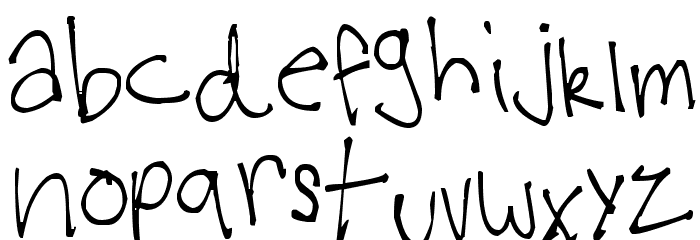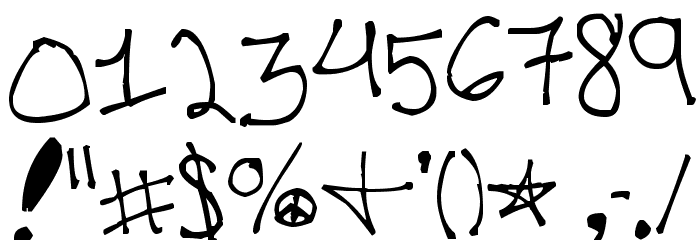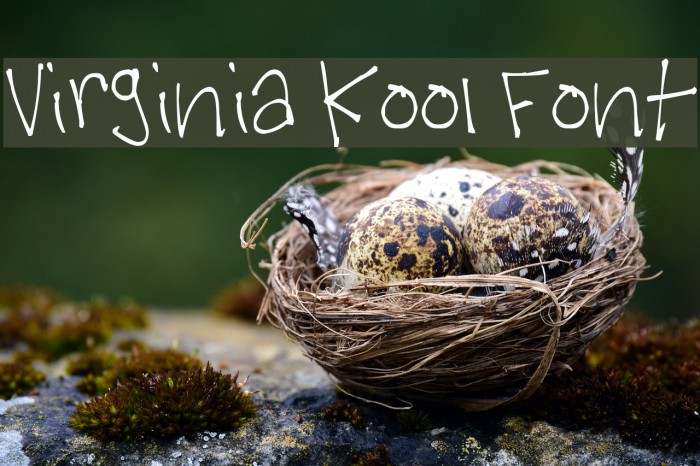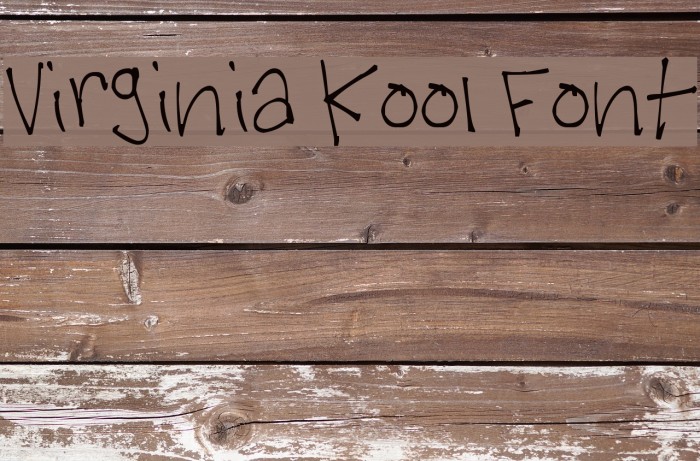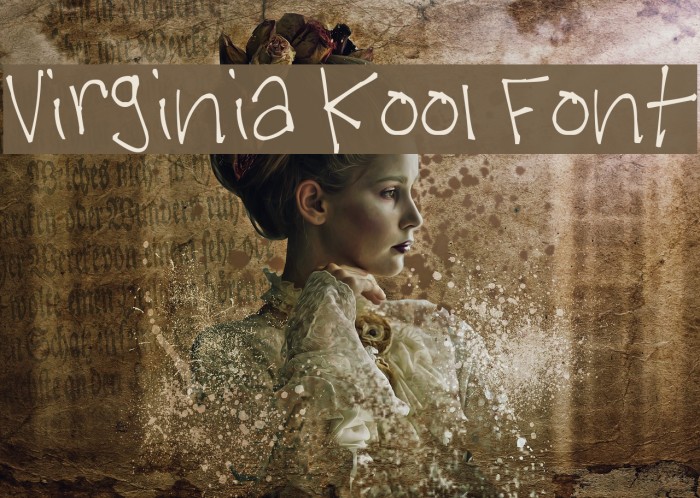
Virginia Kool Font Font
This font features a playful and casual handwritten style, characterized by its irregular and slightly whimsical letterforms. The strokes are uneven, giving it a natural and organic feel, reminiscent of a quick sketch or doodle. The uppercase and lowercase letters maintain a consistent style, with some letters exhibiting unique quirks, such as the looped 'g' and the elongated 't'. The numerals are bold and distinct, matching the playful nature of the alphabet. Special characters are creatively designed, adding to the font's overall charm. This font is perfect for projects that require a personal touch or a fun, informal vibe.
A playful, casual handwritten font with irregular, whimsical letterforms.
- Proposed Projects: Ideal for greeting cards, children's books, playful branding, and informal invitations.
- Overall Style: Casual, Playful
- Use Case: Headlines, Informal text, Creative projects